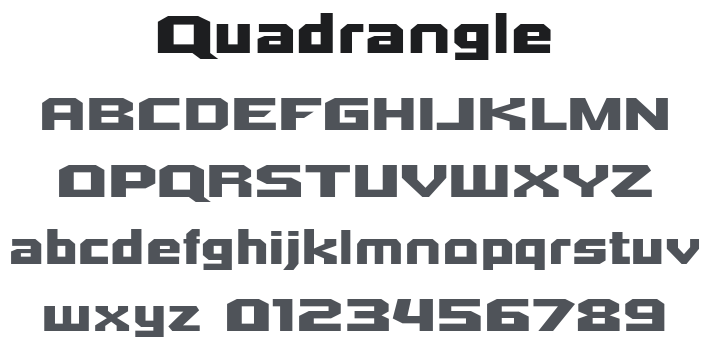
Quadrangle Font
About Quadrangle
Quadrangle is a techno display typeface with bold, squarish letterforms built on strict geometric rules — every stroke end clipped with cold, mechanical precision that gives it an authoritative, industrial edge. Its crisp, uncompromising lines project technical confidence without decoration. Perfect for sci-fi game titles, robotics branding, military-themed designs, tech posters, and any headline demanding hard-edged, no-nonsense authority.